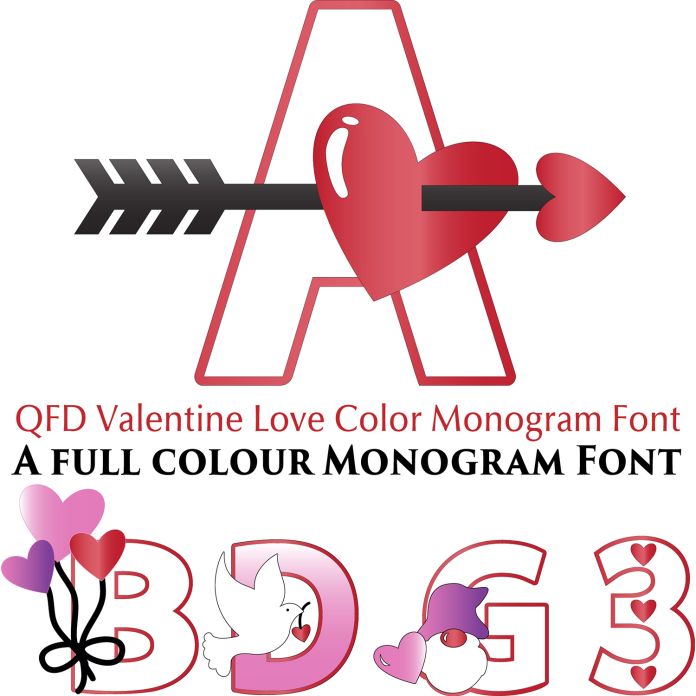
This font covers just about everything! Use it on cards and tags and placecards. You can just print and cut one and resize as needed! Not only are these quick-and-easy designs customized with the first initial of your loved one, each design has an associated image, so it really doesn’t have to be for anyone in particular! Please note this font is compatible in Silhouette Studio and some other softwares, but will show as a filled-in solid when used with incompatible programs. Make sure you click the Instructions button after purchase. If you have any questions, please feel free to contact me through my website!